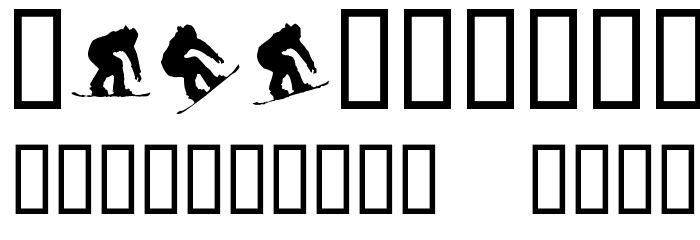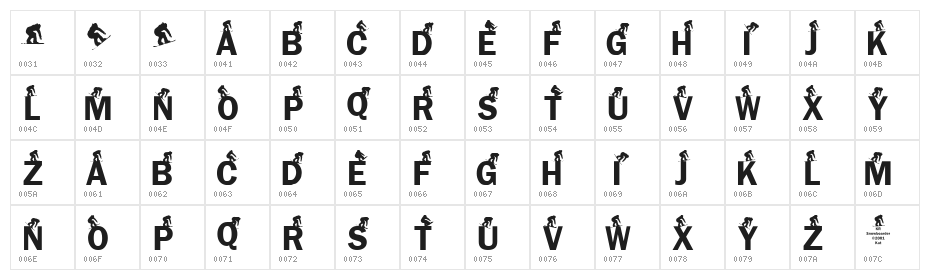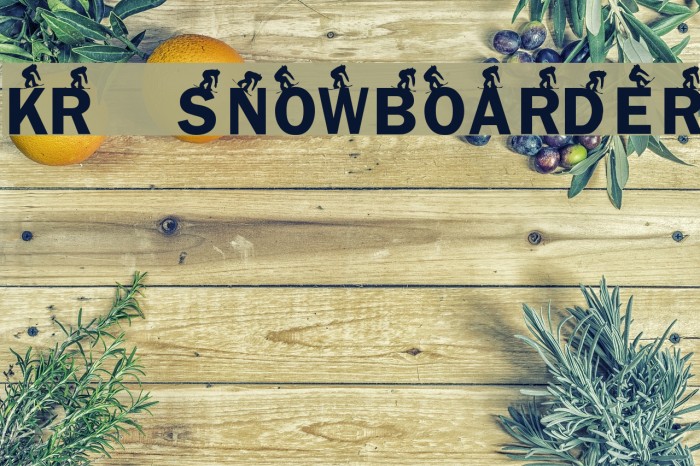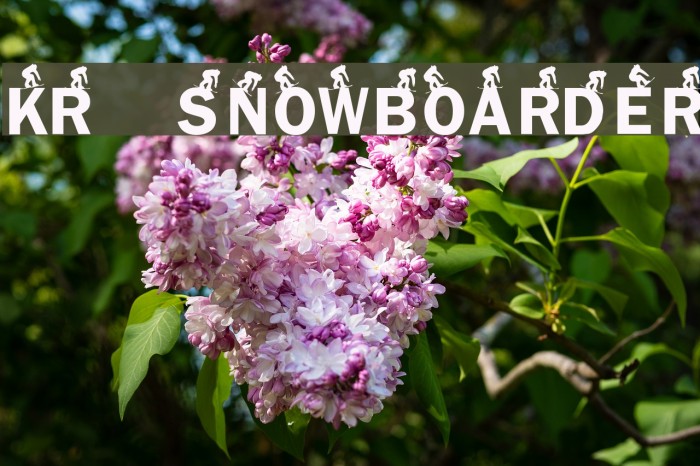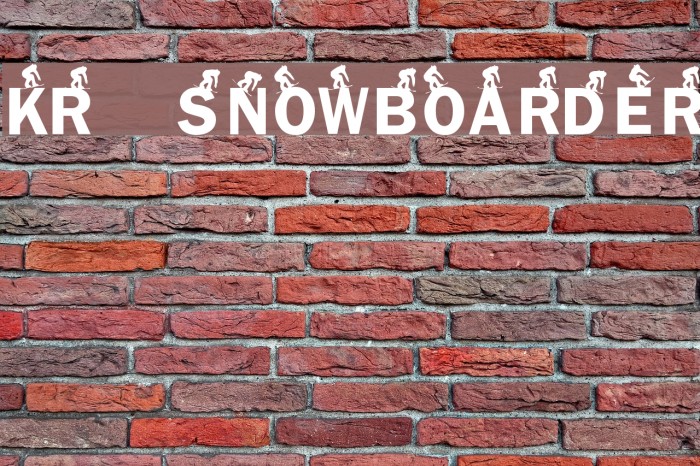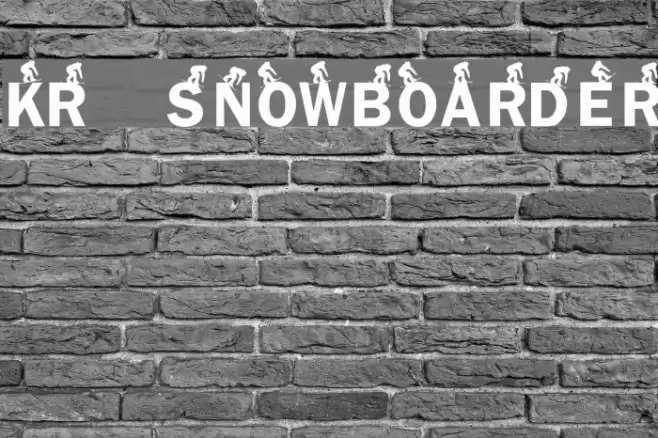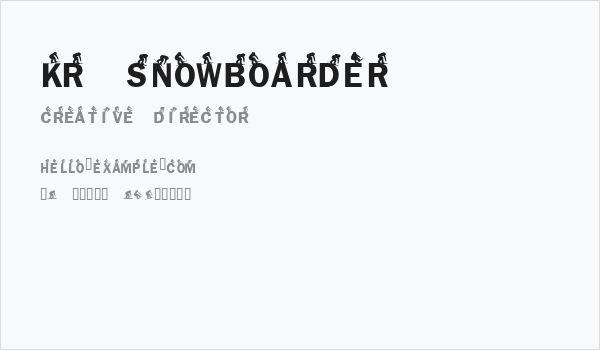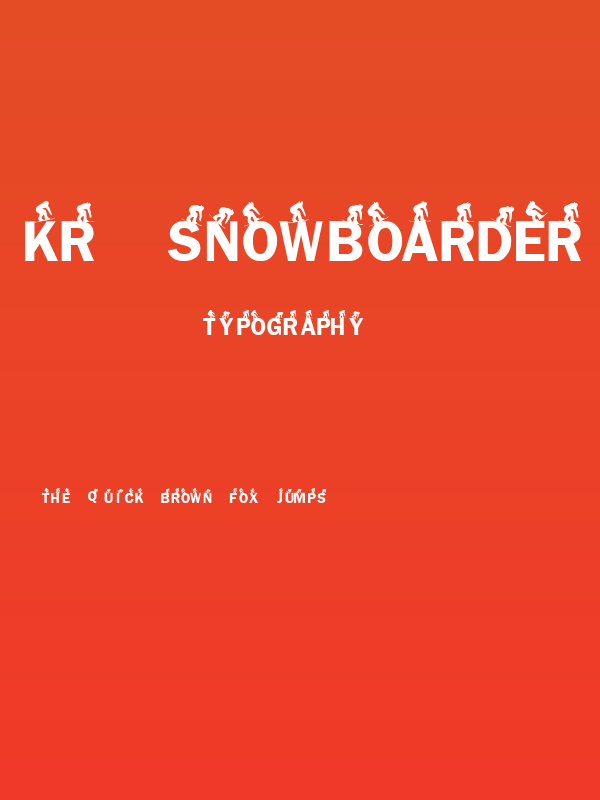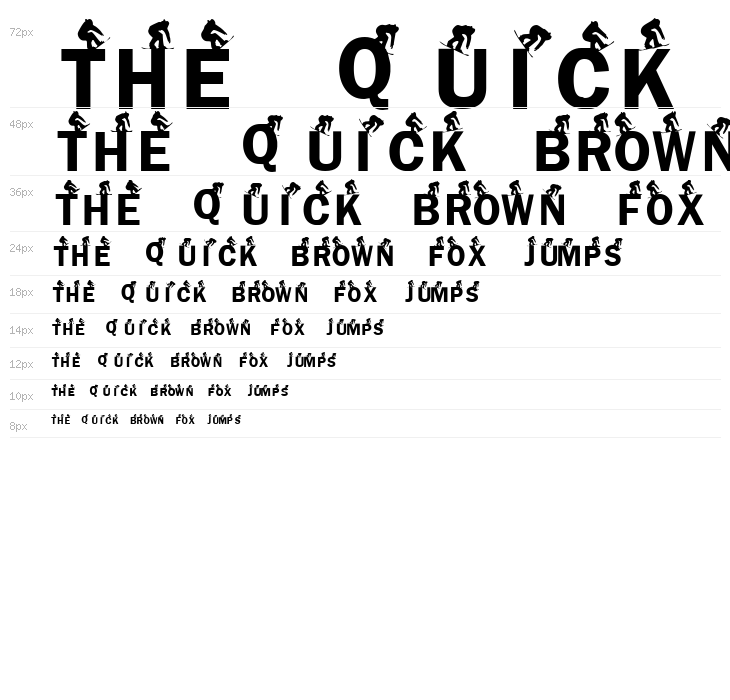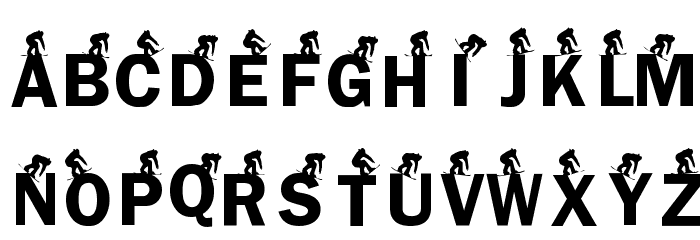
KR Snowboarder Font
KR Snowboarder Description
This font features a unique design where each letter is accompanied by a silhouette of a snowboarder in action. The letters are bold and uppercase, with a strong presence that makes them stand out. The snowboarder figures add a dynamic and adventurous feel, making the font ideal for sports-related themes. The overall style is modern and playful, with a decorative touch that captures the excitement of snowboarding. The characters are evenly spaced, providing a balanced and cohesive look.
| Proposed Projects | Ideal for sports branding, event posters, merchandise design, and outdoor adventure marketing. |